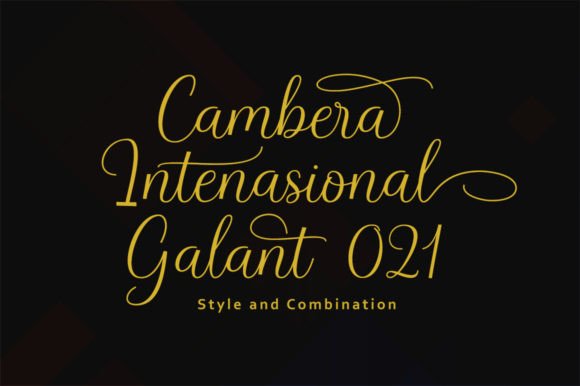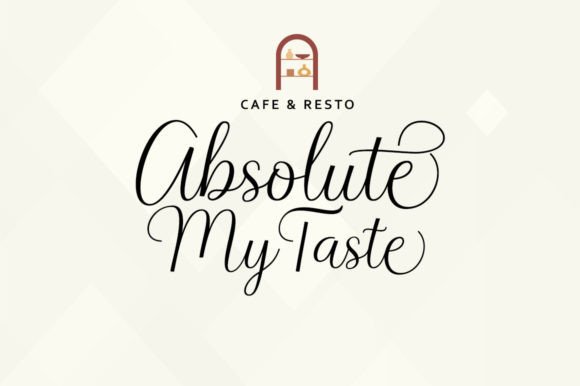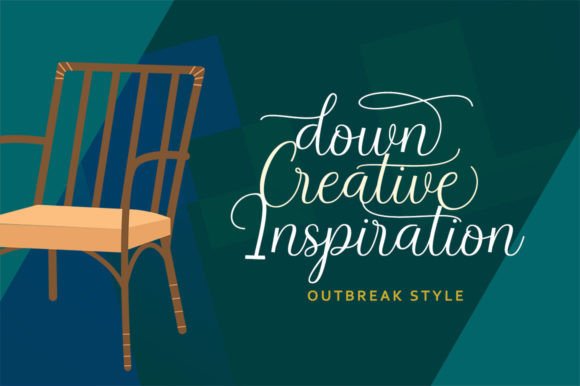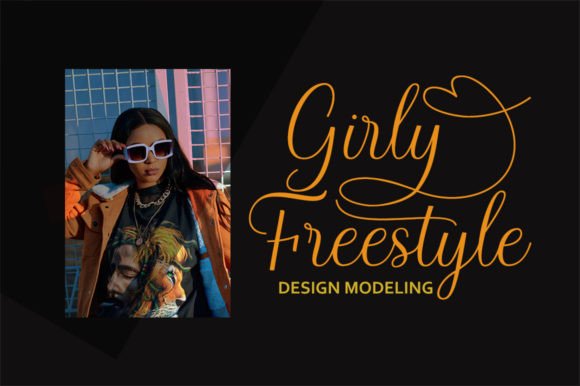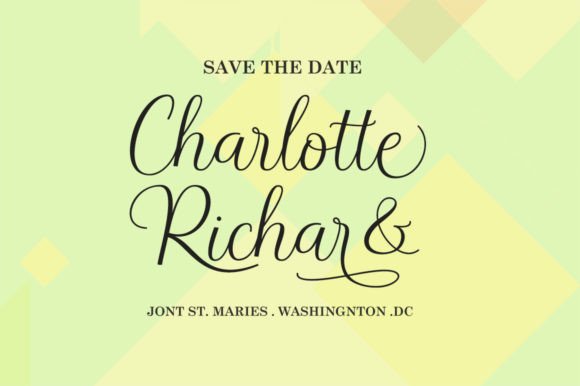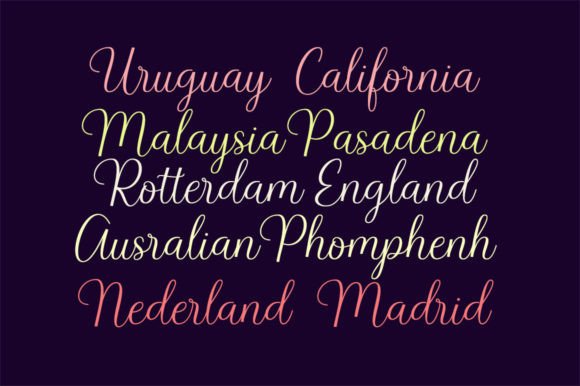
Introduction to Outbreak Font
There’s nothing quite like the thrill of brainstorming a new design concept, surrounded by scattered sketches, scribbled notes, and an endless stream of creative possibilities. It’s that moment when the Outbreak Font comes to mind – a beautiful, flowing typographic outline that adds a touch of authenticity to any project. This free design resource has been a game-changer for many designers, and it’s easy to see why.
Whether you’re working on a high-quality branding project or a creative digital art piece, the Outbreak Font is an excellent choice. Its transparent background and elegant loops make it perfect for adding a personal touch to your designs. Plus, with a variety of binding options and alternatives, you can experiment with different styles to create a unique look that suits your project.
Outbreak Font: Key Features
- High-quality design resource suitable for creative projects, including posters, flyers, and brochures.
- Comes with a transparent background, allowing for easy customization and integration into various design elements.
- Includes a wide range of glyphs and characters, making it ideal for various languages and design applications.
- Designed to be highly legible, with a clear and modern aesthetic that is perfect for both digital and print media.
- Part of a comprehensive font family, offering a consistent look and feel across different font sizes and styles.
Honest Review: Outbreak Font
As a designer, I’m always on the lookout for new and innovative design resources to enhance my creative projects. Recently, I stumbled upon the Outbreak Font, and I must say, it’s been a game-changer for me.
Here are some things that work well for me:
- ✨ High-quality font with a bold and edgy feel
- ✨ Transparent background, making it easy to combine with other elements
- ✨ Great for creating attention-grabbing headlines and titles
- ⚠️ Limited character set, which can be a challenge for longer texts
- ⚠️ Not suitable for body text, as it can be overwhelming for readers
Overall, I’m impressed with the Outbreak Font. It’s a great addition to my design resource library, and I’ve already used it in several projects. The fact that it’s available for free download is a bonus! I’d definitely recommend it to designers who are looking for a bold and eye-catching font to elevate their creative projects.
The Outbreak Font is a high-quality design resource that can elevate your creative project to the next level. This font features a transparent background, making it easy to use in various design applications.
Tips for Getting the Most Out of Outbreak Font
- Experiment with different font sizes and colors to create visually appealing designs.
- Use the font in combination with other design elements to create a cohesive look.
- Take advantage of the font’s transparent background to create unique and eye-catching designs.
- Business cards and stationery
- Posters and social media graphics
Q: Does the Outbreak Font come with a transparent background?
Yes, the Outbreak Font is provided with a transparent background, making it easy to integrate into various design projects. This feature allows designers to customize the font to fit their specific design needs.